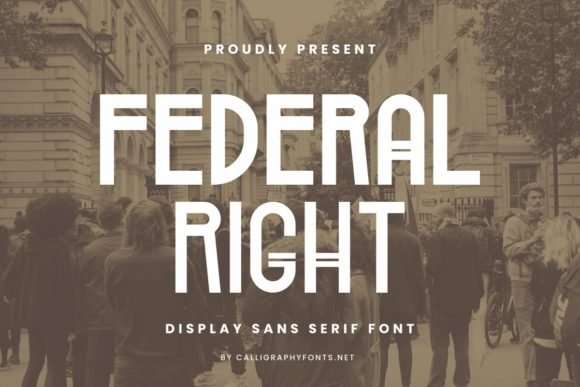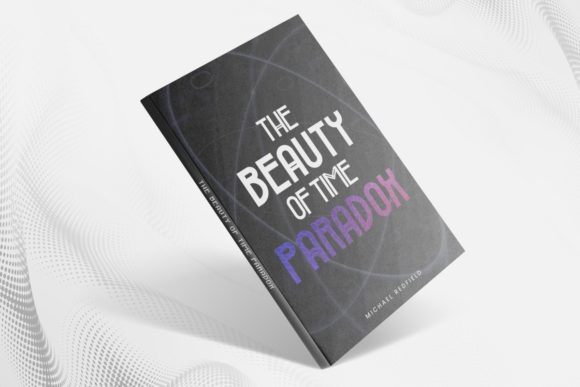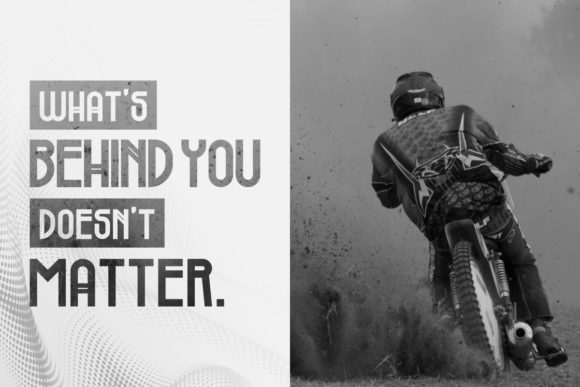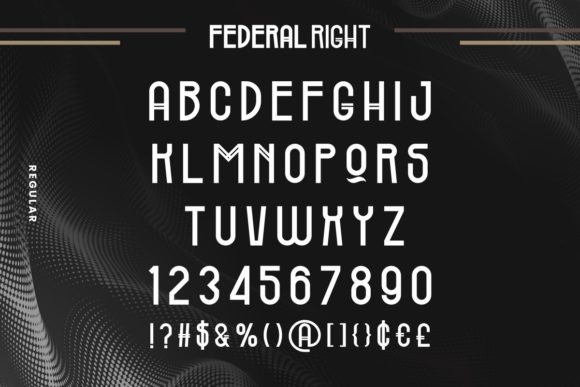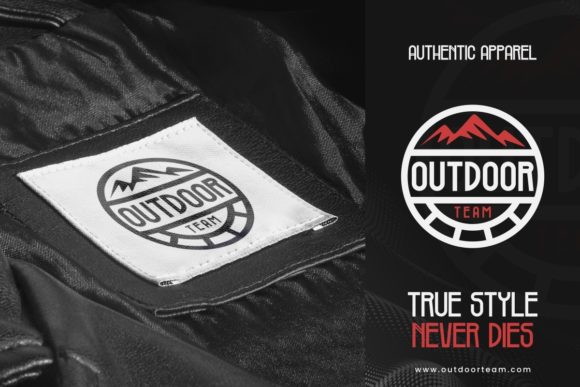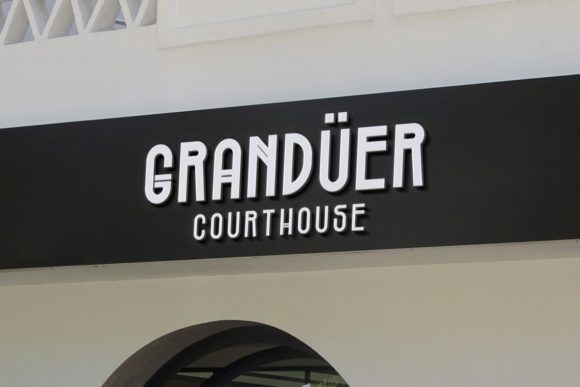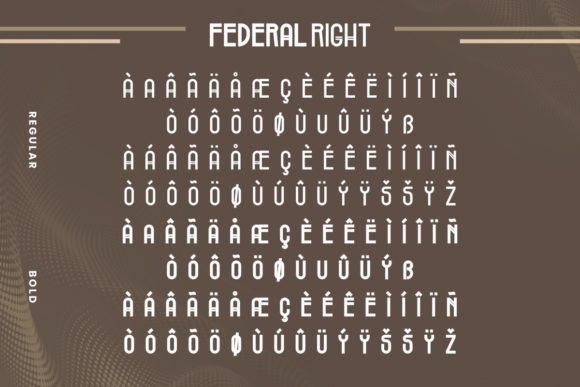
The Perfect Font for Every Creation
Remember that moment when you finally landed on the perfect font for your project? The one that made all the design elements come together in harmony? For many designers, that moment is elusive, but with the right font, it can become a reality. Introducing the Federal Right Font, a simple, adaptable, and assertive sans serif font that’s sure to elevate your creations.
This font is not just another addition to your library; it’s a game-changer. With its versatility and clean design, it can be used for a wide range of projects, from digital interfaces to print materials. Whether you’re a seasoned designer or just starting out, the Federal Right Font is an invaluable asset that will help you create stunning designs that capture attention and convey your message effectively.
- Unique Characteristics: Features a unique blend of modern and traditional typography elements, making it suitable for a wide range of applications, including corporate branding, publishing, and signage.
Federal Right Font Review
As a designer, I was excited to dive into the Federal Right Font and see if it lived up to its promise of elegant, refined typography. Here’s my honest review.
- Classic feel**: Federal Right Font exudes a sense of classic sophistication, perfect for projects that require a touch of elegance.
- Versatility**: This font is incredibly versatile, suitable for a wide range of applications, from corporate branding to editorial design.
- Legibility**: The font’s clear, legible lines make it easy to read, even at smaller font sizes.
- Limited expressiveness**: While Federal Right Font is great for traditional, formal designs, it may lack the expressiveness needed for more avant-garde projects.
- May not stand out**: In a crowded market, Federal Right Font may blend in with other similar fonts, making it harder to differentiate your design.
Overall, I’d say Federal Right Font is a solid choice for designers who want a timeless, elegant font. While it may not be the most exciting option, it’s a reliable choice that’s sure to please.
Getting the Most Out of the Federal Right Font
Here are some tips for getting the most out of the Federal Right Font:
- Use it for titles and headings to add a touch of elegance.
- Combine it with other fonts for a unique and modern look.
The Federal Right Font is commonly used for:
- Corporate branding and identity.
- Government and official documents.
- Luxury and high-end branding.
Alternatives to Federal Right Font
Open Sans is a modern sans-serif font designed for digital use. It is highly legible and suitable for body text, headings, and titles. Use Open Sans for clean and professional designs where readability is a top priority.
Comparison: Open Sans has a more rounded and friendly feel compared to Federal Right Font’s geometric and angular design. It is more versatile and suitable for a wider range of designs.
Montserat is a sans-serif font inspired by urban typography. It is highly legible and suitable for body text, headings, and titles. Use Montserrat for designs that require a touch of urban sophistication.
Comparison: Montserrat has a more condensed and geometric feel compared to Federal Right Font’s more rounded design. It is more suitable for designs that require a strong, urban aesthetic.